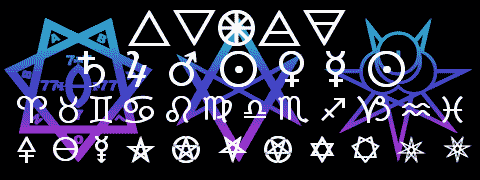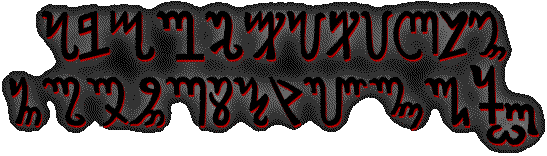
![[3 of 57 glyphs only shown]](231sigs.gif)
Sigils from Crowley's Liber CCXXXI, plus the characters of the Fixed Stars from Agrippa (Occ. Phil. lib. II cap. lii). The download includes a text file with a list of keymaps.
Sigils from the Mathers-Crowley edition of the Goetia, as used in the Celephaïs Press edition.
![[This is just a small selection]](occsymb.gif)
Maybe not all the magical symbols you'll ever need, but a good selection none the less.
Updated March 2004: now includes a few more misc characters, plus as a bonus the “RC Symbols” font, currently a small selection of additional alchemical symbols and Rosicrucian emblems found in Secret Symbols of the Rosicrucians
Also known as the Alphabet of Honorius, the Witches' Alphabet, etc. It is referred to the Latin alphabet and written left to right (the last character, referred to the Greek Omega, is not generally used as a letter, rather as a period or separator). This script was popularised by Agrippa's De Occulta Philosophia (it appears in lib. III cap. XXIX, "De characteribus et sigillis spritiuum"), although it may have appeared in earlier works such as the Polygraphia of Trithemius. The alphabet is traditionally ascribed to one 'Honorius the Theban', probably the author of the Liber Juratus (the Sworn Book of Honorios), a medieval work on magic.
The Characters of Celestial Writing, the writing called Malachim and the writing called Passing of the River all appeared in De Occulta Philosophia lib. III cap. XXX, “Alius characterizandi modus a cabalistis traditus,” and are referred to the Hebrew alphabet. They do not include distinct final forms for any letters, although Malachim has a variant form of Samekh which may correspond to the otherwise unknown ‘Samekh final’ alluded to in some works on Magick. Malachim is also called ‘Angelic’ or ‘Regal’ (from Heb., MLKIM, ‘Kings’) by Agrippa.
This simple Hebrew-based cipher script is also described by Agrippa (loc. cit.). Unlike the three previous scripts, it does contain distinct final forms.
The download archive contains the five scripts shown above; there are two versions of each of the first four, one based on the forms in the 1533 edition of Agrippa’s Third Book, the other from Francis Barrett’s The Magus.
This is a traditional “square” Hebrew face. It contains the five final forms plus a variant form of Lamed, minimal punctuation and no pointing.
Update December 2004: The archive now adds an experimental variant which includes versions of most letters with dagesh marks, Shin with ‘sin dot’ and ‘shin dot’ and eleven vowel points. The archive also includes a text file with all key mappings.
Update November 2005: Minor improvements to a few characters (mainly to make some letters easier to tell apart from each other).
A Coptic face with upper and lower case forms of all 32 letters. The download includes a text file with key mappings.
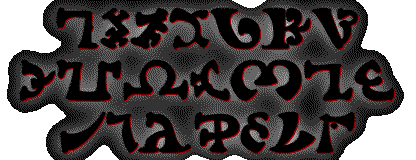
If you need to be told what this is, you don't need to download it. This font is closely based on the Dee manuscripts in order to ensure the correct orthography of all the letters.
This is a magical alphabet which appears in Aleister Crowley's The Vision and the Voice. It corresponds to the letters of the English alphabet.
Continuing the theme of sharp pointy things, this is another script from The Vision and the Voice. The letters approximately map to the Enochian alphabet, although V is distinguished from U and W.
This is a simple cipher alphabet which can be found in Duncan's Masonic Monitor and many other books on Freemasonry and cryptography. There are two forms of the cipher; in this font one is mapped to uppercase letters, one to lowercase letters.
This is a slight variant on the Royal Arch cipher which appeared in the Hay-Wilson-Langford-Turner Necronomicon. While generally corresponding to the English alphabet, C and K are not distinguished, nor are U and V.
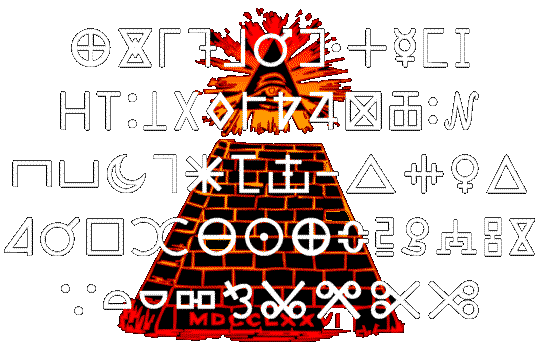
These ciphers were published in A History of Secret Societies by Akron Daraul (Idries Shah) and are alleged to have been used by the infamous Bavarian Illuminati. U and V are distinguished, but I and J are not. A third Illuminati cipher replaces the letters with numbers A with 12, B with 11, and so on down to M with 1; then N with 13, O with 14 and so on to Z=24 (here U and V are not distinguished). There is also one set of cipher charaters for the digits. These ciphers are used to spell out cryptic messages in some of the illustrations to Cosmic Trigger by R.A. Wilson.
The archive contains the Royal Arch cipher, Alphabet of Nug-Soth and Illuminati ciphers.